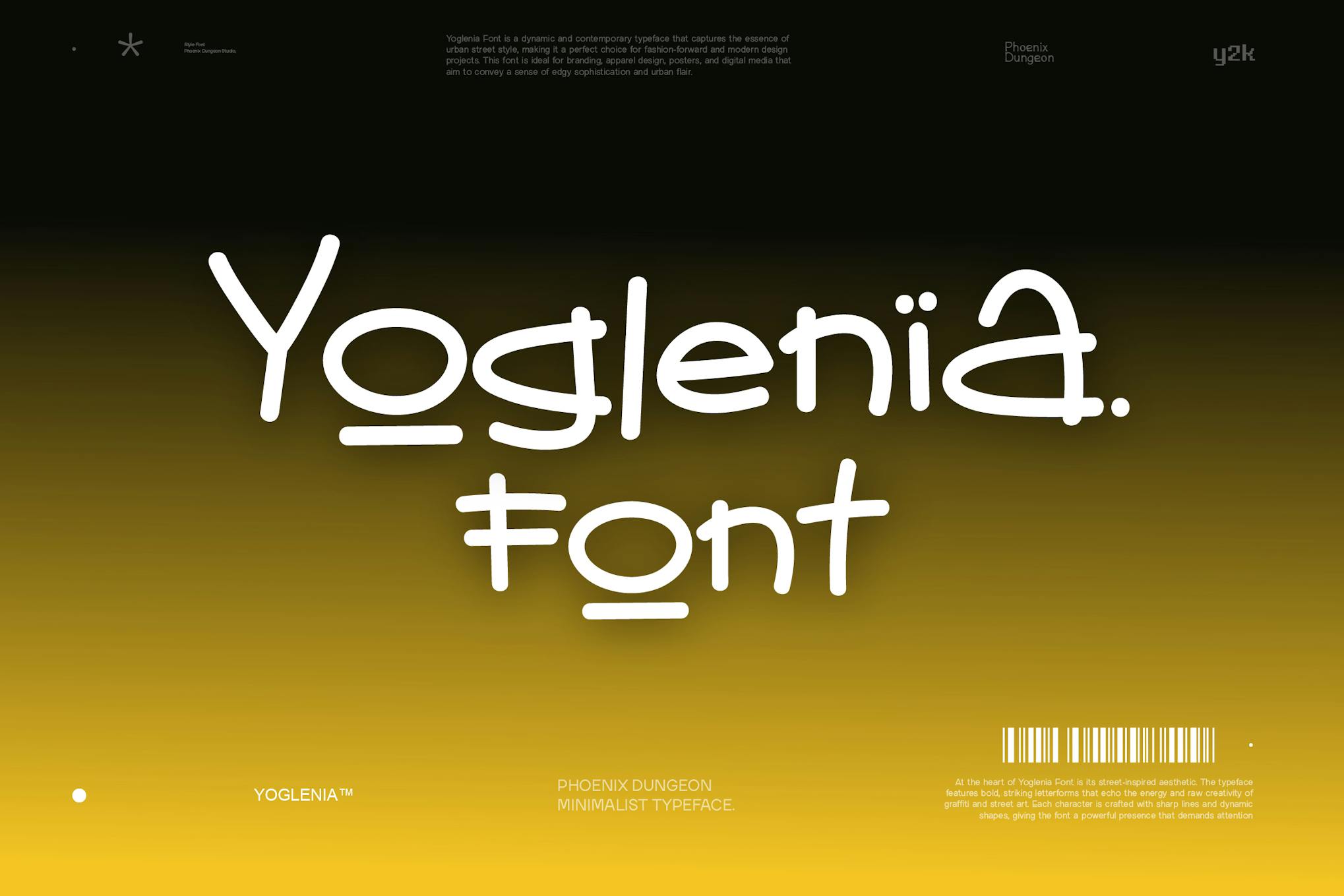
Yoglenia Font
Yoglenia Font harmonizes across yoga studio branding, meditation retreat signage, wellness center materials, holistic health publications, mindfulness workshop graphics, spiritual awakening seminars, zen meditation spaces, wellness coach certifications, holistic therapy practices, yoga teacher training programs, mindful living magazines, and serene lifestyle marketing where yogic wisdom and elegant spirituality create transformative wellness experiences.
This serene typeface generates excitement through its perfect embodiment of yogic grace and spiritual elegance that creates typography channeling the ancient wisdom and mindful practice of authentic yoga traditions. Yoglenia Font captures the essence of yogic consciousness with its gracefully balanced letterforms that suggest the flowing movements of asana practice and the elegant simplicity found in traditional yoga philosophy. The font's mindful design approach incorporates elements that evoke Sanskrit calligraphy, meditation postures, and the harmonious balance that defines authentic yogic practice and spiritual development. Its distinctive character reflects the peace, wisdom, and elegant strength that define genuine yoga tradition and mindful living philosophy.
The Yoglenia Font family includes multiple mindful variations such as Regular, Light, Medium, Bold, and Zen versions, each maintaining the font's characteristic yogic elegance while offering different levels of spiritual impact. The collection features yoga-inspired styling, mindful effects, and serene textures that enhance its wellness aesthetic. Additional elements include lotus symbols, yoga ornaments, mindful decorative borders, and zen flourishes that reinforce the font's connection to yogic tradition and holistic wellness practices.
Wellness professionals and yoga organizations consistently select Yoglenia Font Free Download for projects requiring typography that communicates spiritual authenticity and yogic wisdom. This remarkable typeface excels in applications where establishing holistic credibility and conveying yogic tradition are essential for wellness and spiritual practice success. The font's yogic qualities make it particularly effective for yoga studios, wellness centers, and mindfulness organizations targeting practitioners who appreciate authentic spiritual tradition and holistic wellness approaches.
Whether you're designing yoga studio materials, creating wellness retreat campaigns, developing mindfulness programs, or crafting spiritual communications, Yoglenia Font delivers unmatched yogic authenticity. Its ability to convey spiritual elegance, yogic wisdom, and mindful serenity makes it invaluable for wellness professionals seeking typography that genuinely honors the sacred tradition of yoga practice. The font's serene presence ensures your designs will communicate the peaceful wisdom and elegant spirituality that define exceptional yoga communications and authentic wellness experiences.